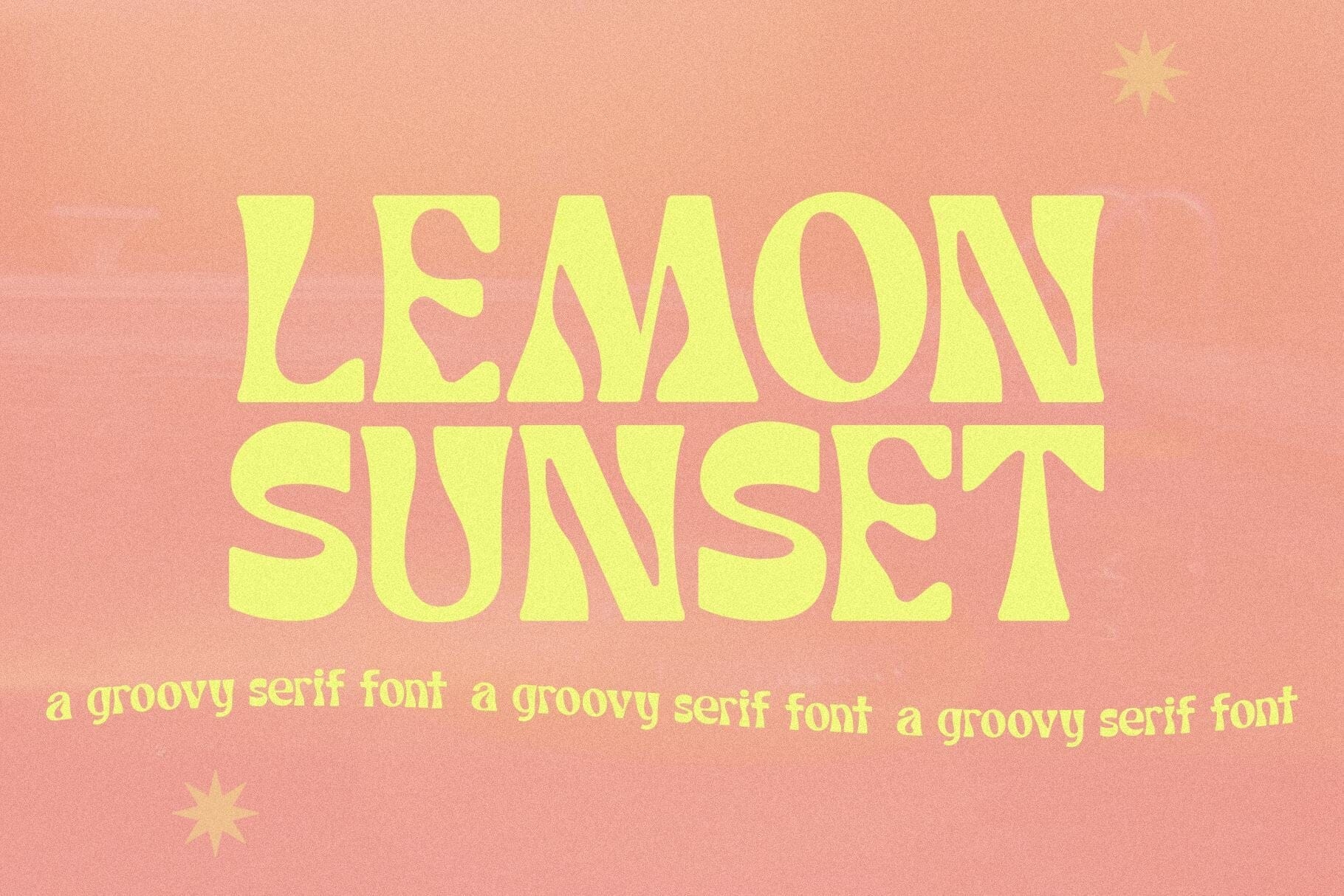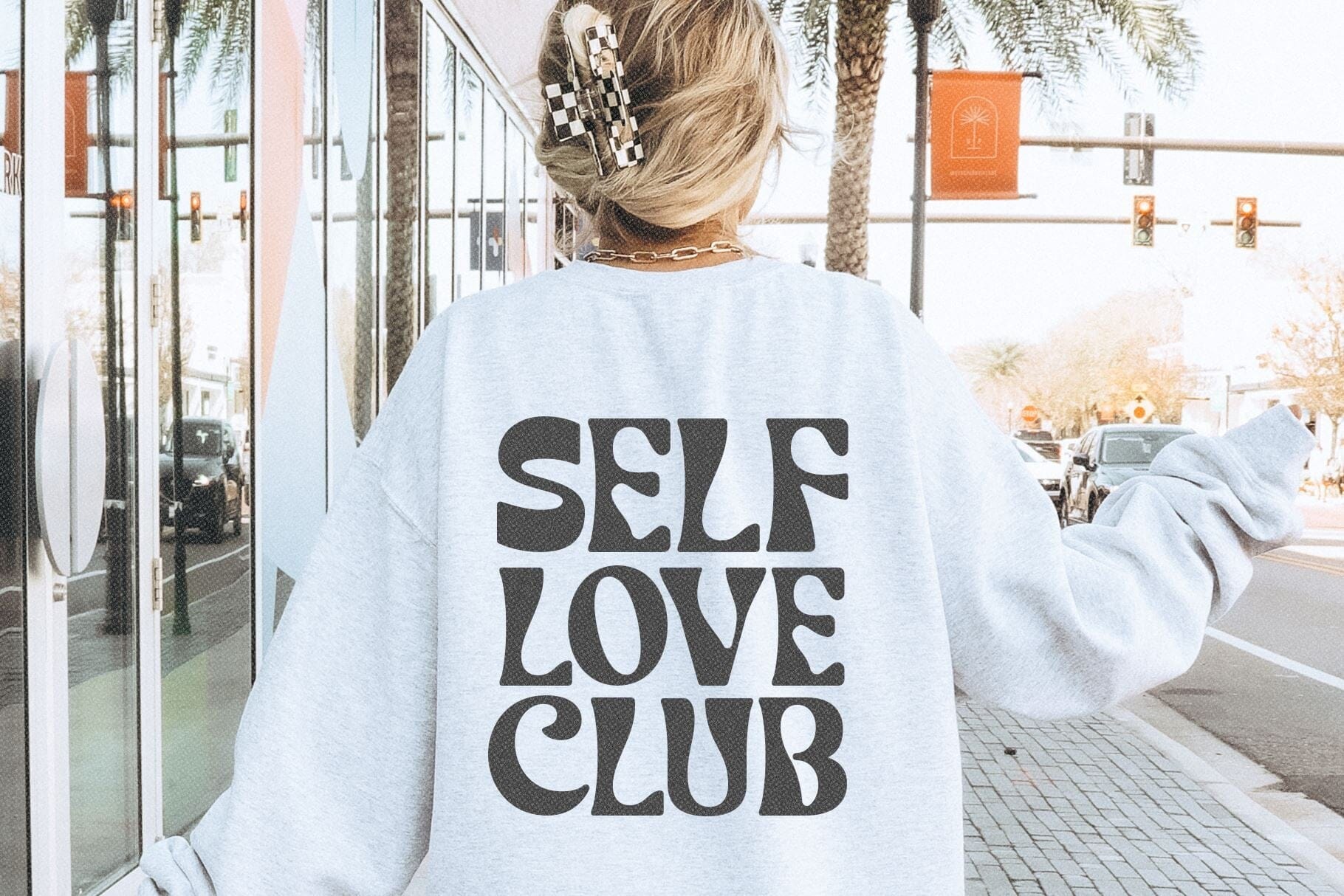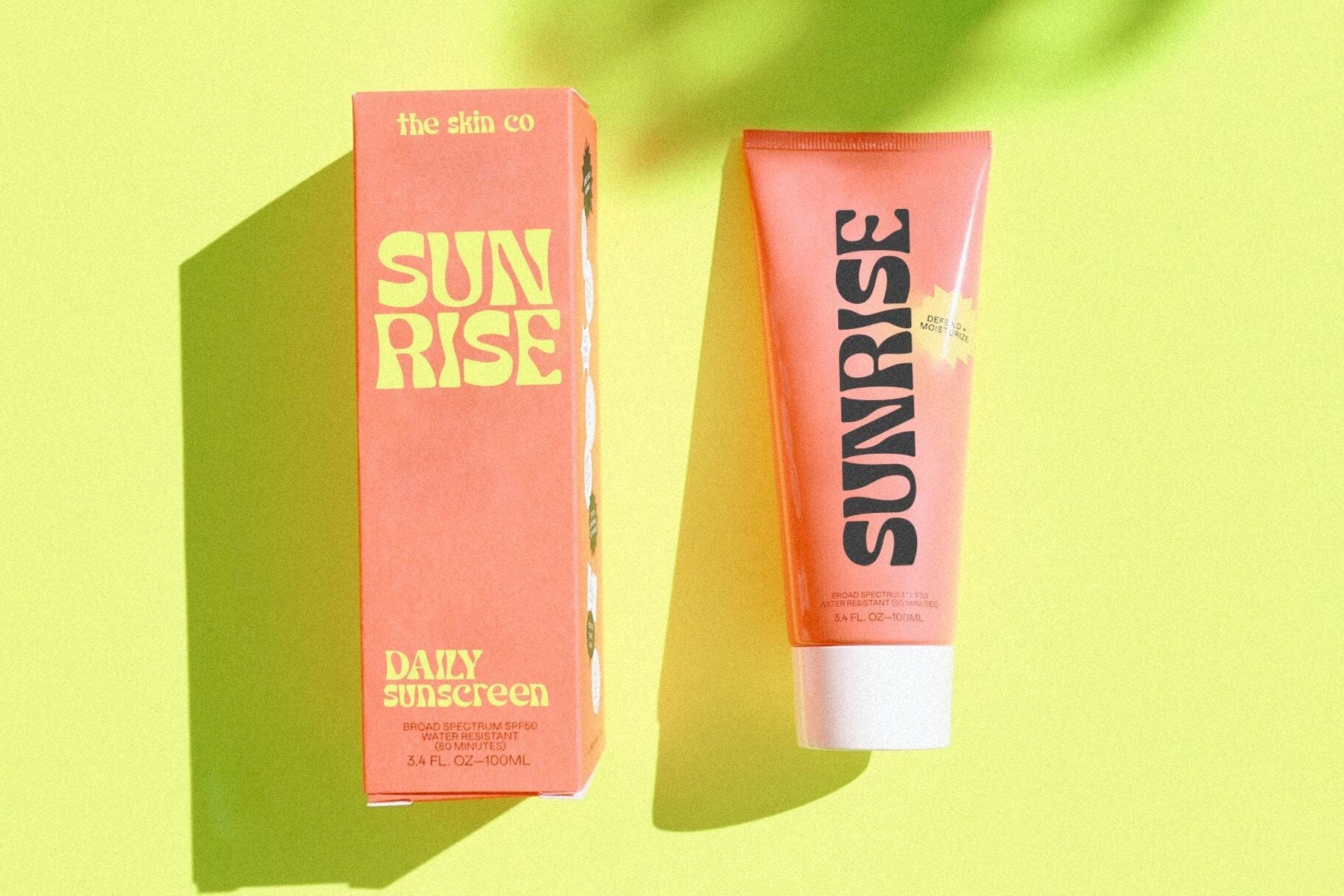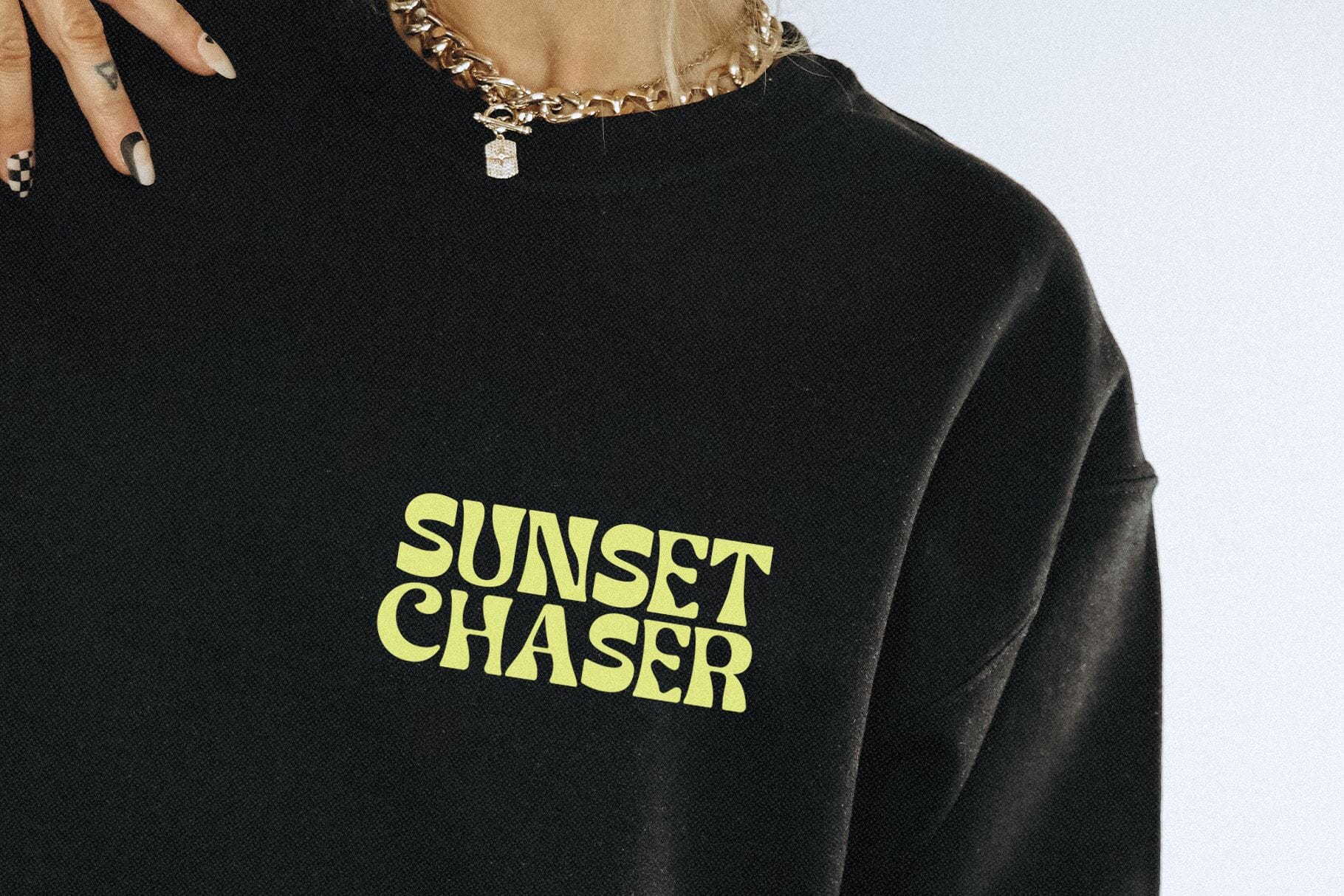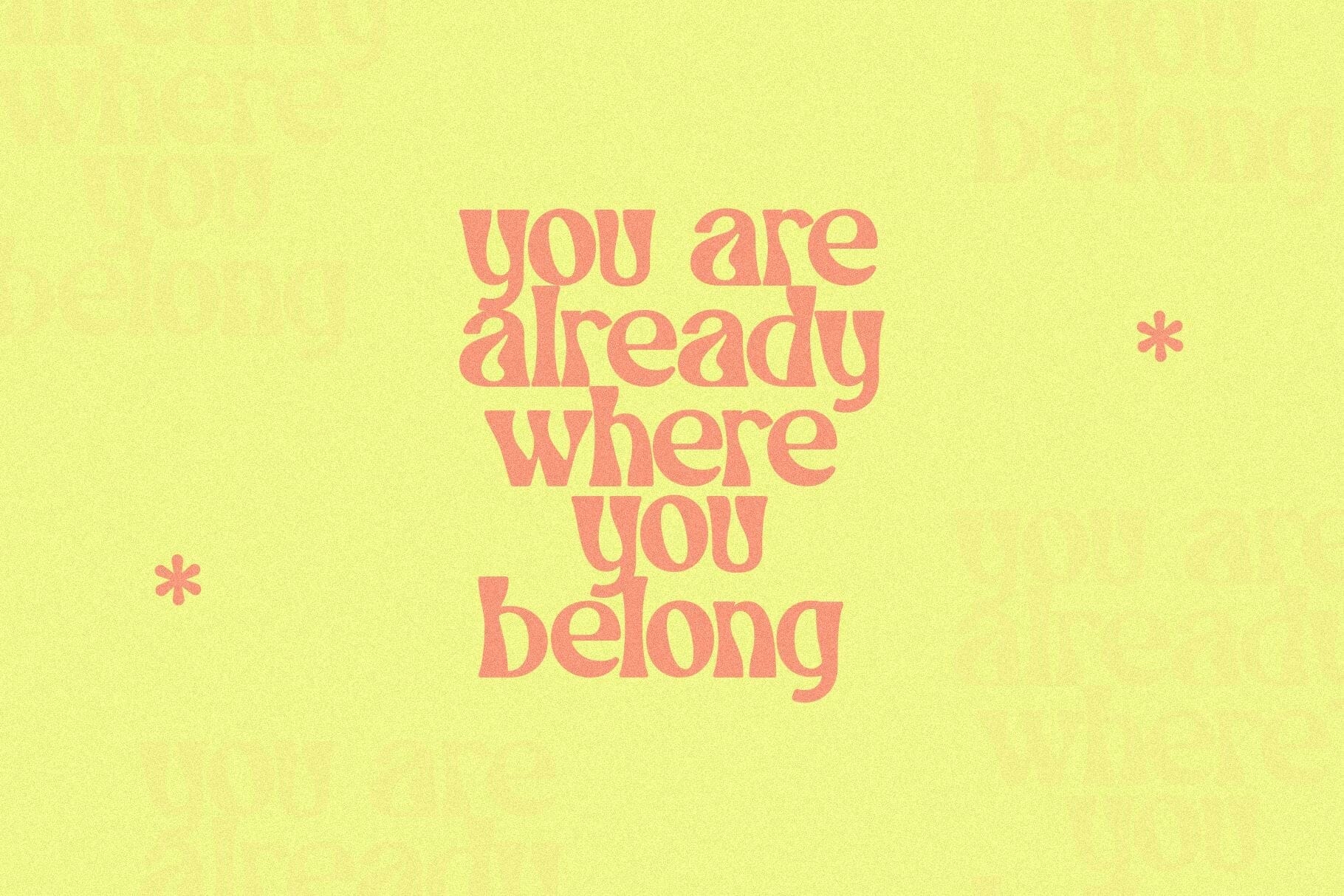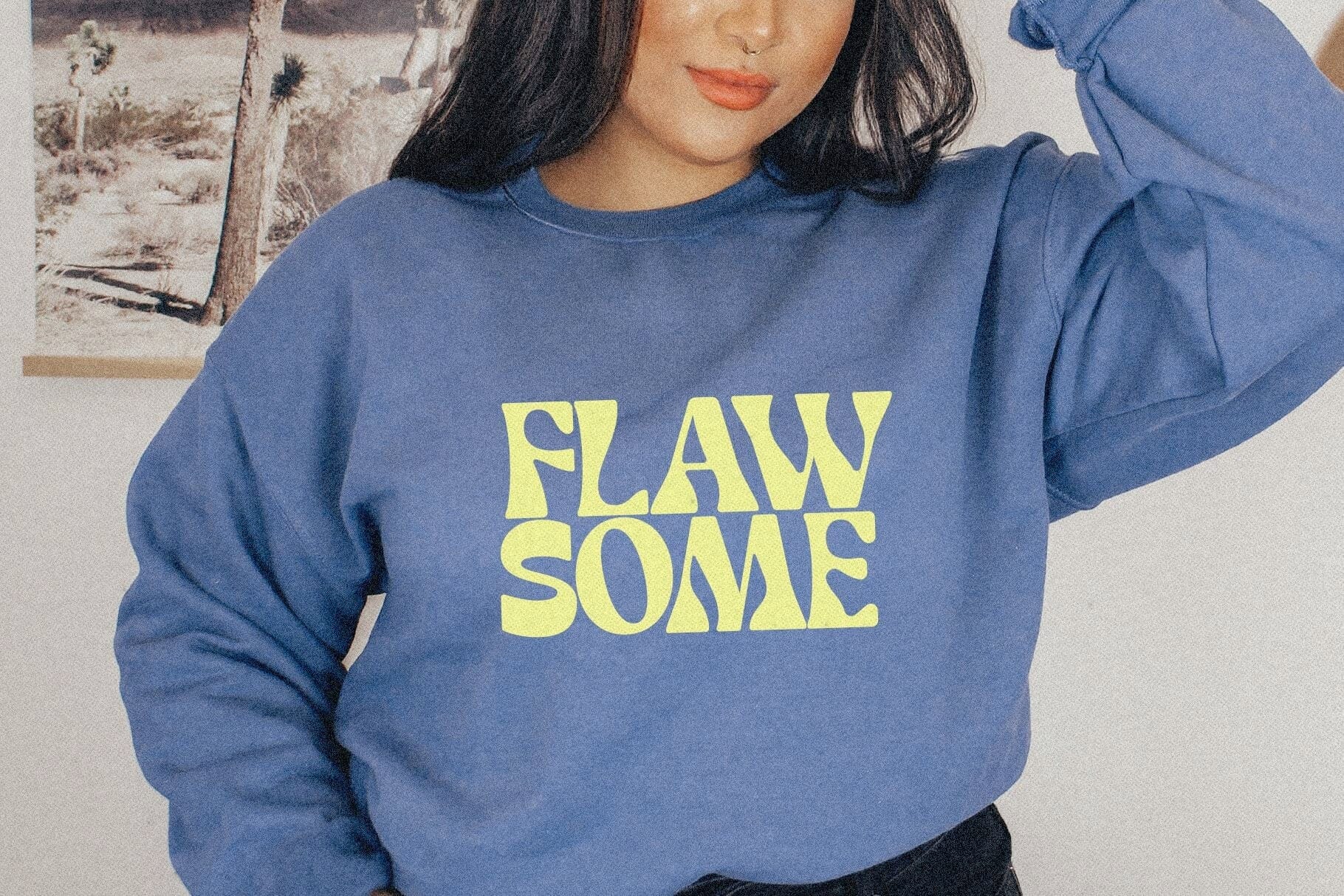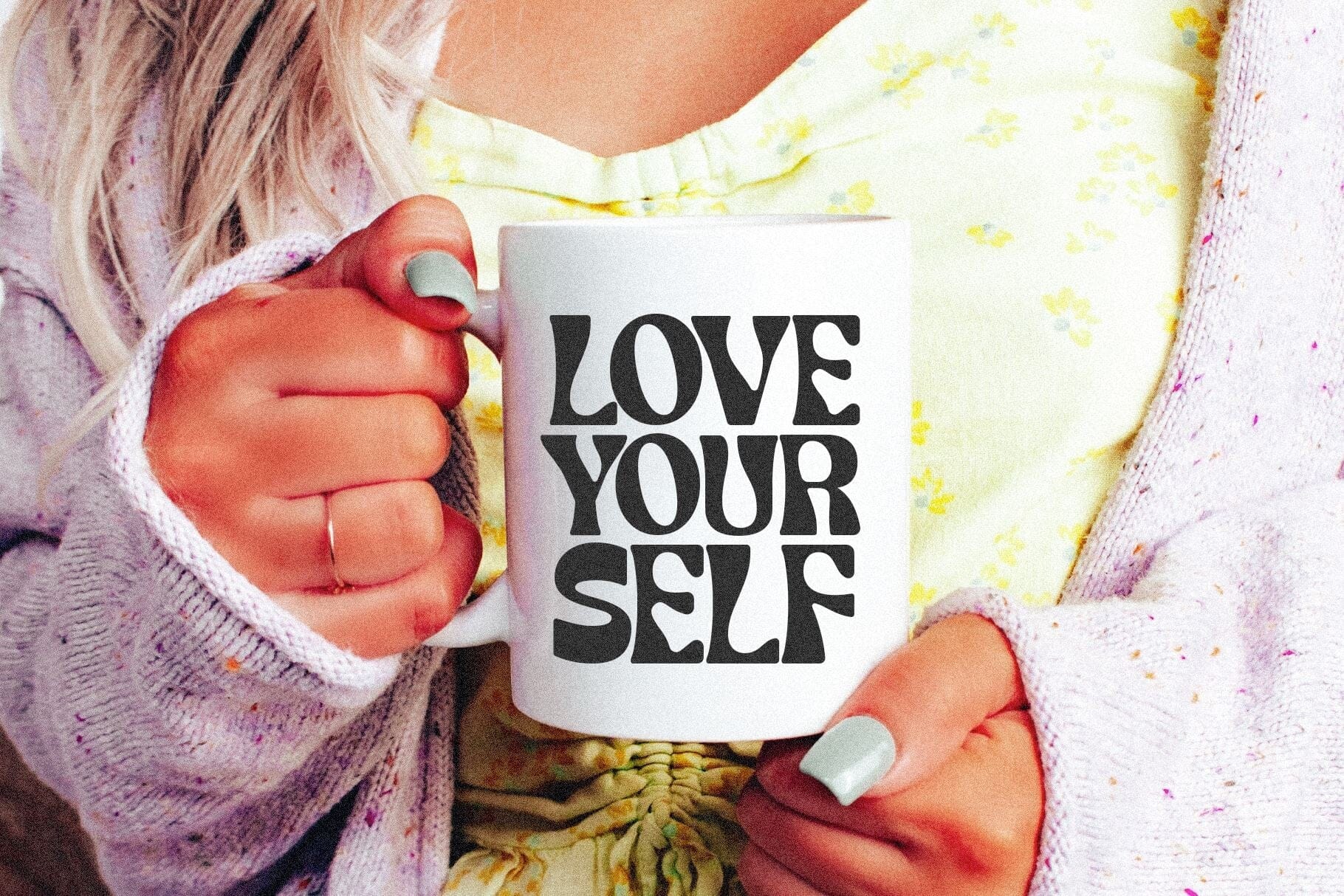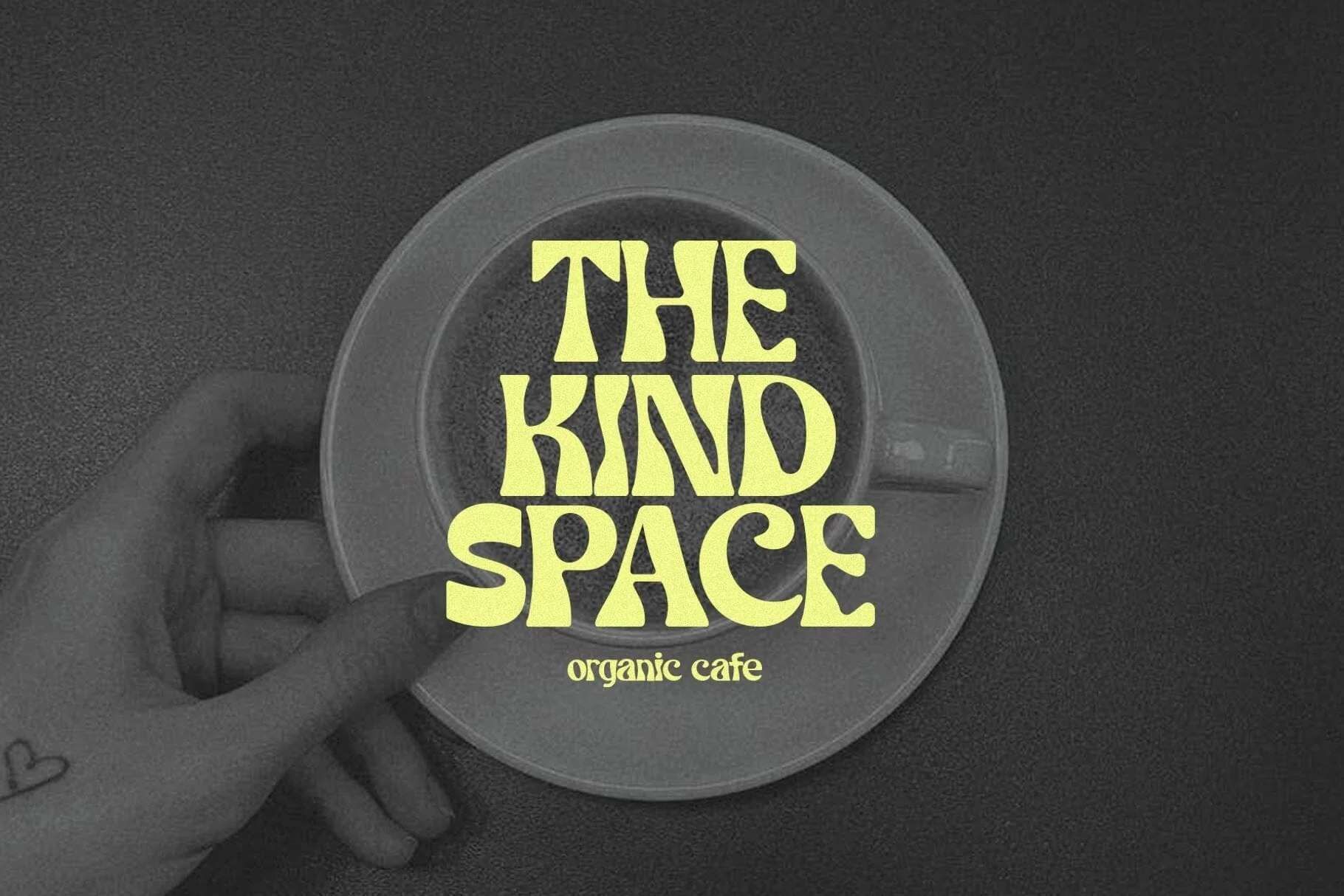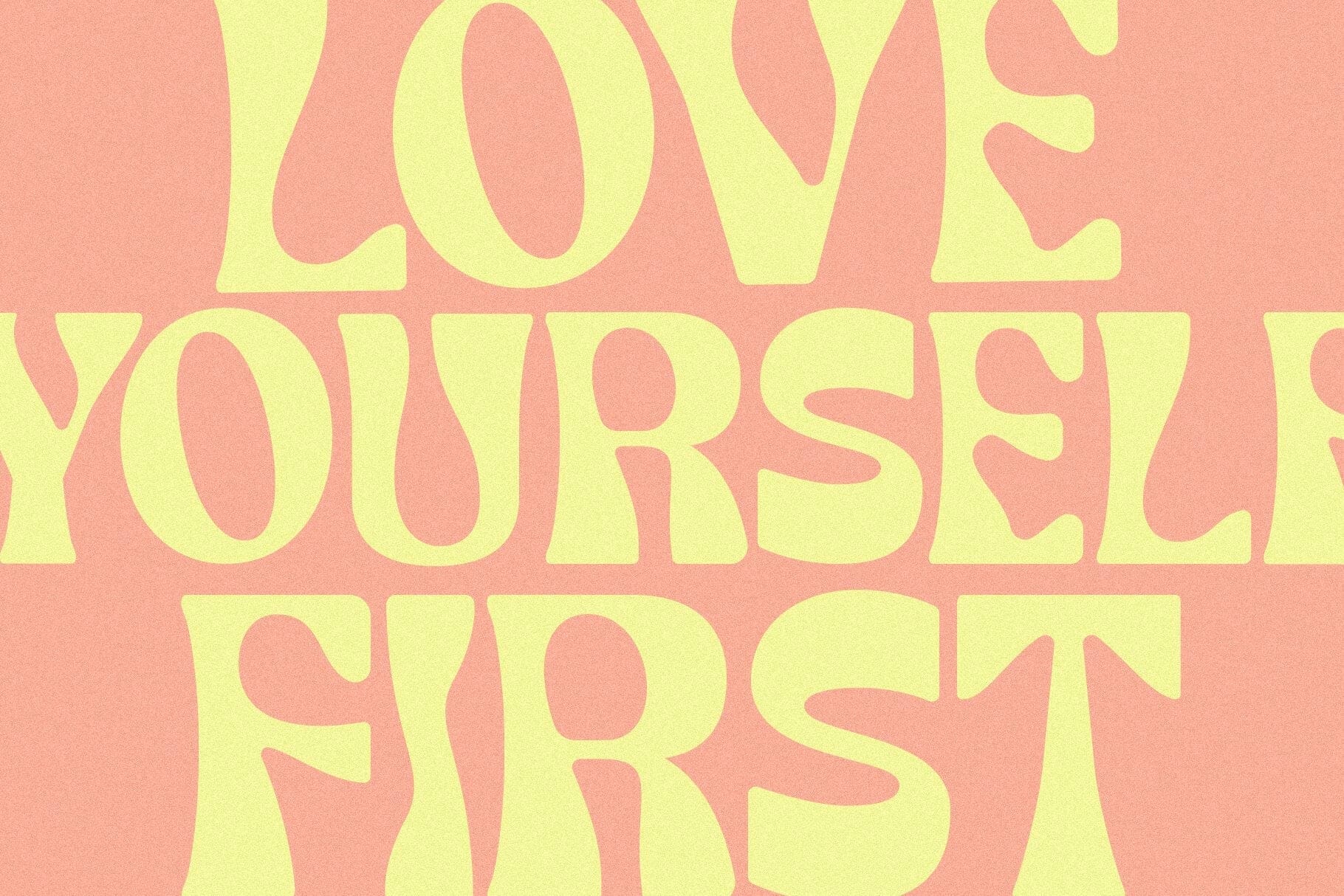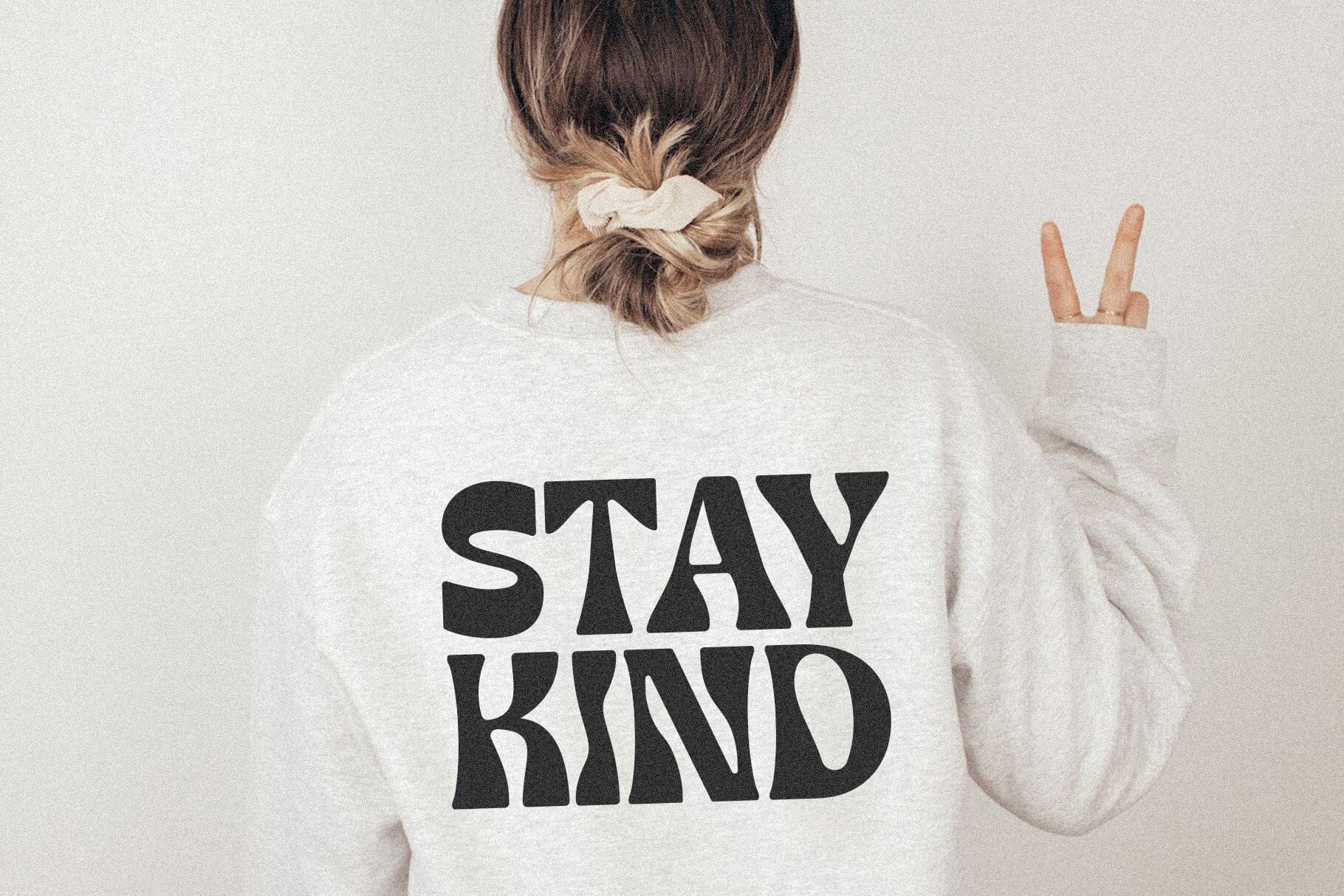
Lemon SunsetĀ is a fun handwritten font.
This font is perfect for your craft projects, svg files, retro designs, stickers, shirts, mugs, procreate and more!
Lemon SunsetĀ is a fun handwritten font.
This font is perfect for your craft projects, svg files, retro designs, stickers, shirts, mugs, procreate and more!